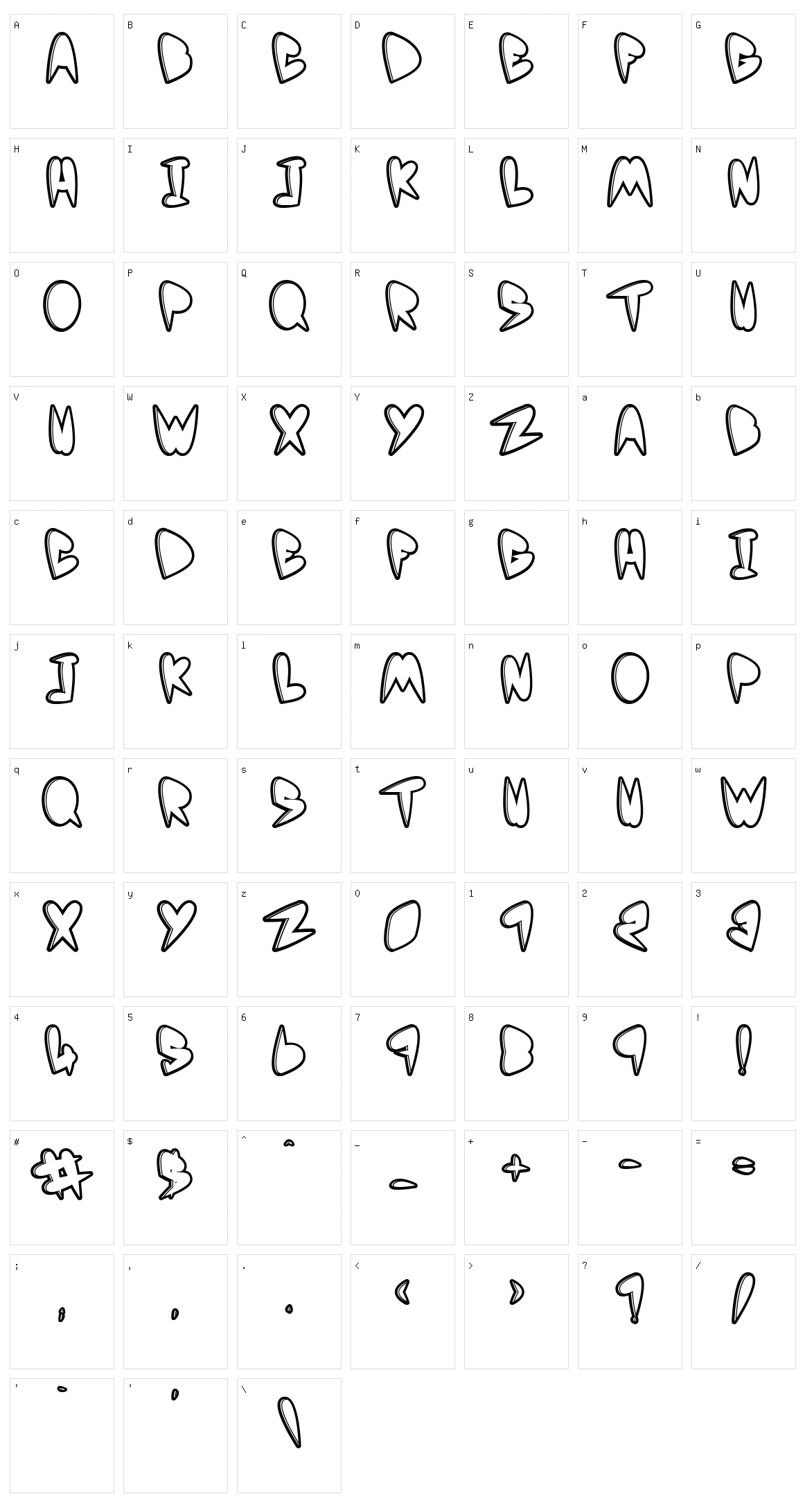
The free font Yo mama is carefully designed by Qkila, showcasing a thoughtful balance of creativity and usability and falls under the Cartoon font style. When you download the ZIP file, it contains only 44.5 KB of font files, making it lightweight and quick to download. Please review the license details below to understand permitted usage and distribution rights. If license information is not available, we recommend using this font for personal projects only or contacting the author directly for commercial usage permissions.